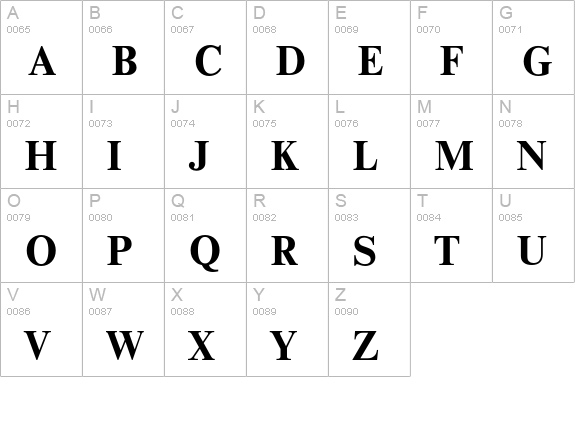
Thames-Bold is a strong, high-contrast variant in the Thames typeface family \xE2\x80\x94 well suited to headlines, attention-grabbing titles, and strong calls-to-action.
Thames-Bold is a beautifully crafted font that exudes elegance and sophistication. With its bold and strong letterforms, this typeface captures attention and makes a lasting impression. Designed with meticulous precision, Thames-Bold offers a perfect balance between classic and contemporary design elements. Its clean lines and smooth curves create a sense of harmony and grace, making it suitable for a wide range of design projects. This versatile typeface is ideal for headlines, logos, posters, and any other application where you want to make a bold statement. Its legibility and readability ensure that your message will be conveyed with clarity and impact. But what sets Thames-Bold apart is not just its stunning design, it is also the fact that it is available for free! Yes, you read that right. This exceptional font can be freely downloaded at FontsMarket.com, allowing designers, artists, and enthusiasts to access its beauty and functionality without any cost. Whether you are a professional designer or a hobbyist, Thames-Bold is a must-have font in your toolkit. Its timeless appeal and versatility make it a perfect choice for any project. So don't miss out on this incredible opportunity to enhance your designs with a free download of Thames-Bold at FontsMarket.com.